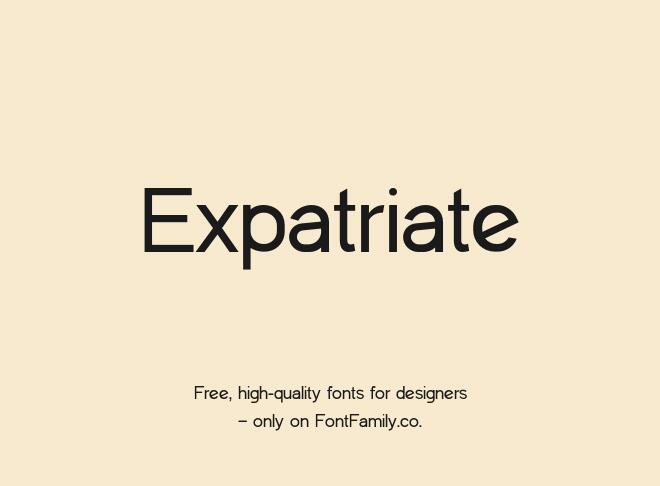
Expatriate Font
The Expatriate Font, a creation of John Smith Design Studio, is a modern, display and rustic font. This unique blend of styles is perfect for designers looking for a fresh, contemporary look with a hint of rustic charm. The Expatriate Font stands out with its distinctive lettering that is both bold and sleek, making it a great choice for branding, logos, and headline text. It's a versatile font that pairs well with both serif and sans serif fonts, creating an attractive contrast. With its clean lines and organic texture, the Expatriate Font adds a touch of sophistication and a modern edge to any design project. The font is free for personal use, making it a fantastic asset for designers on a budget.